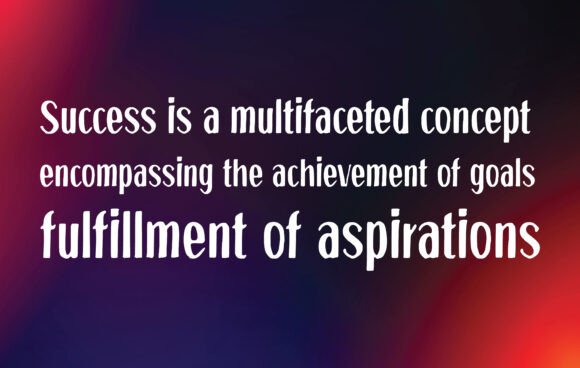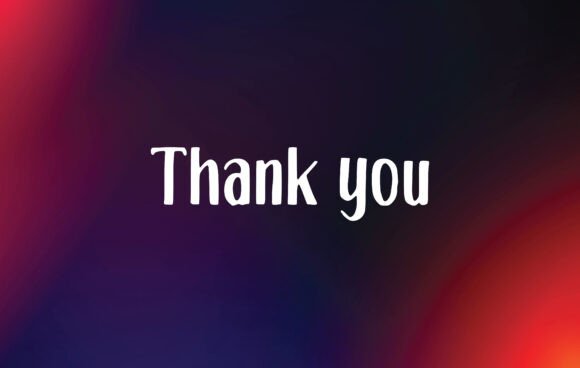
Introduction to Polecat Font
Polecat is a lovely and beautiful handwritten font.
Key Features of Polecat Font
Why Choose Polecat Font?
Polecat Font offers exceptional quality and versatility, making it a valuable addition to your design toolkit. Whether you’re creating for personal projects or commercial use, Polecat Font delivers professional results.